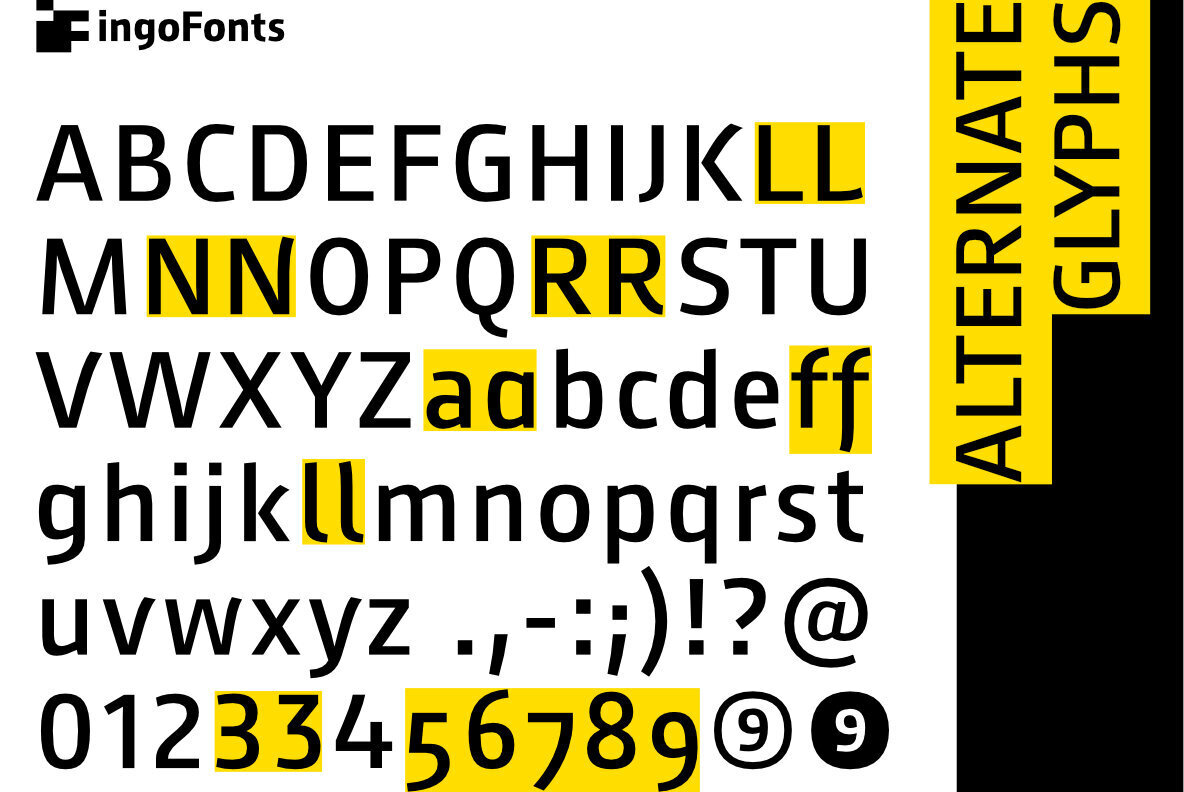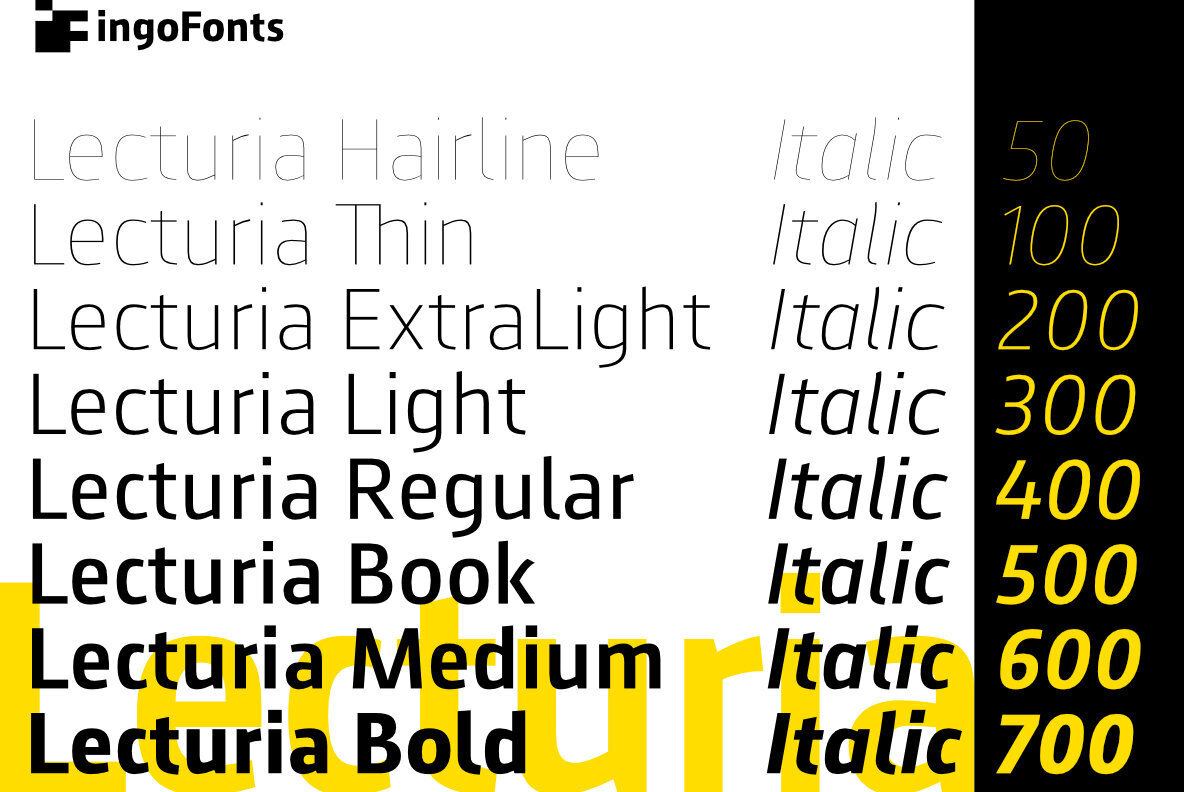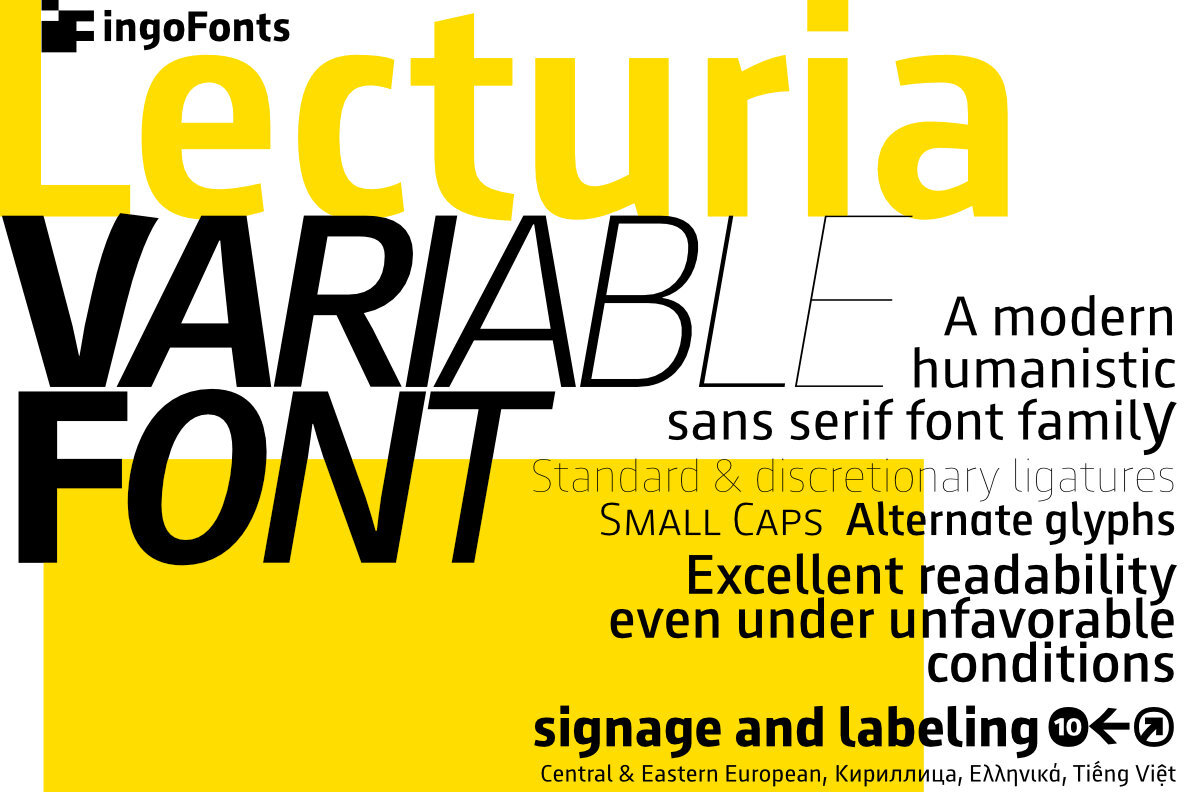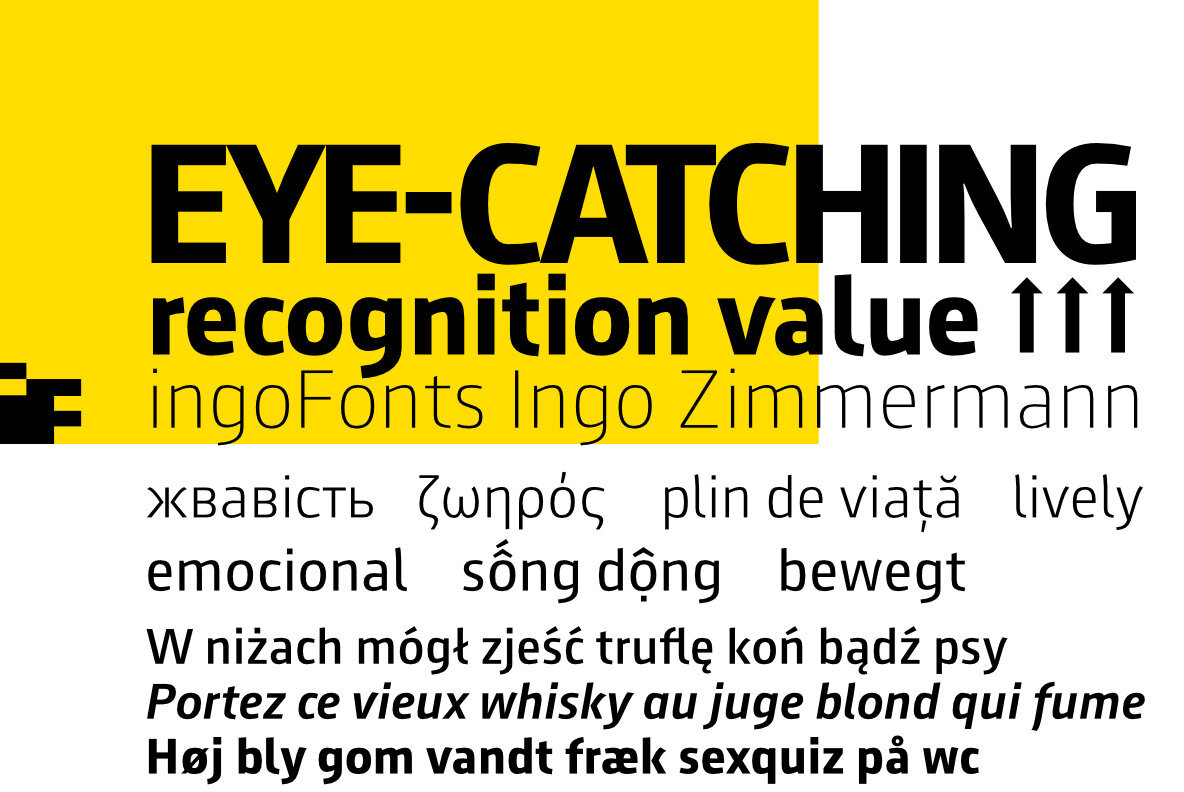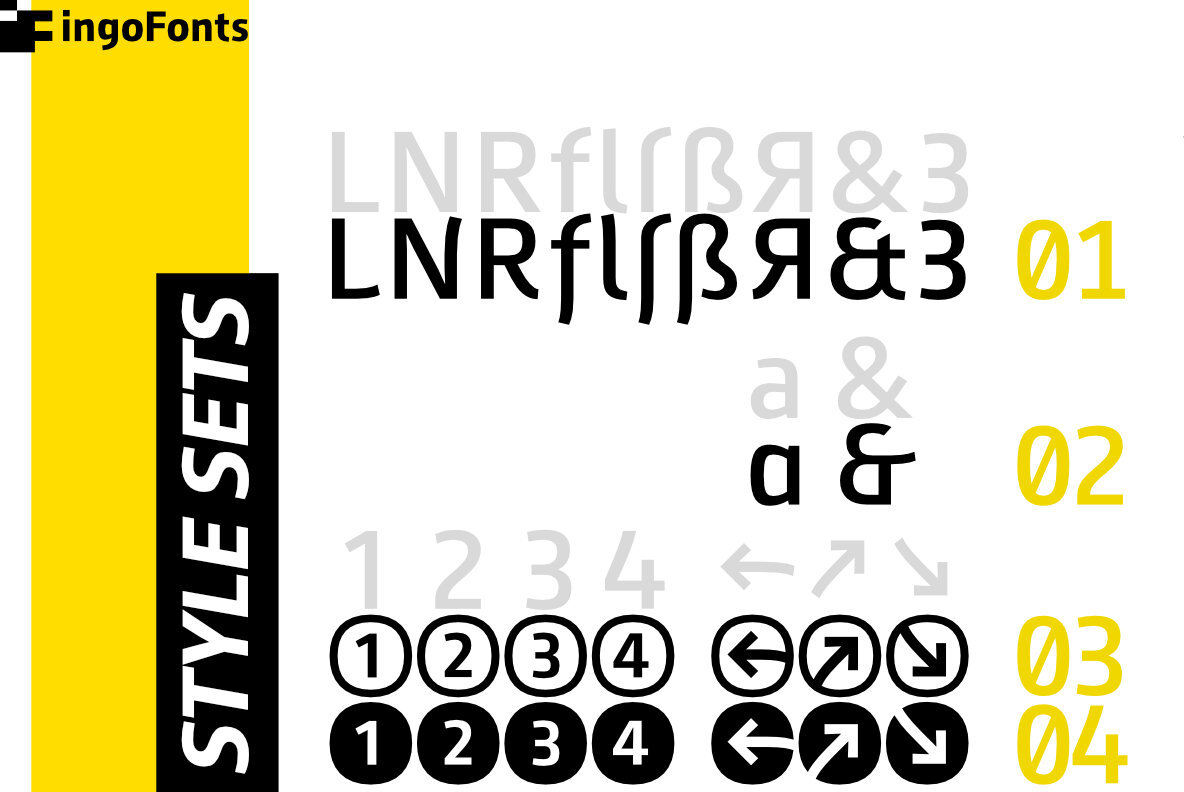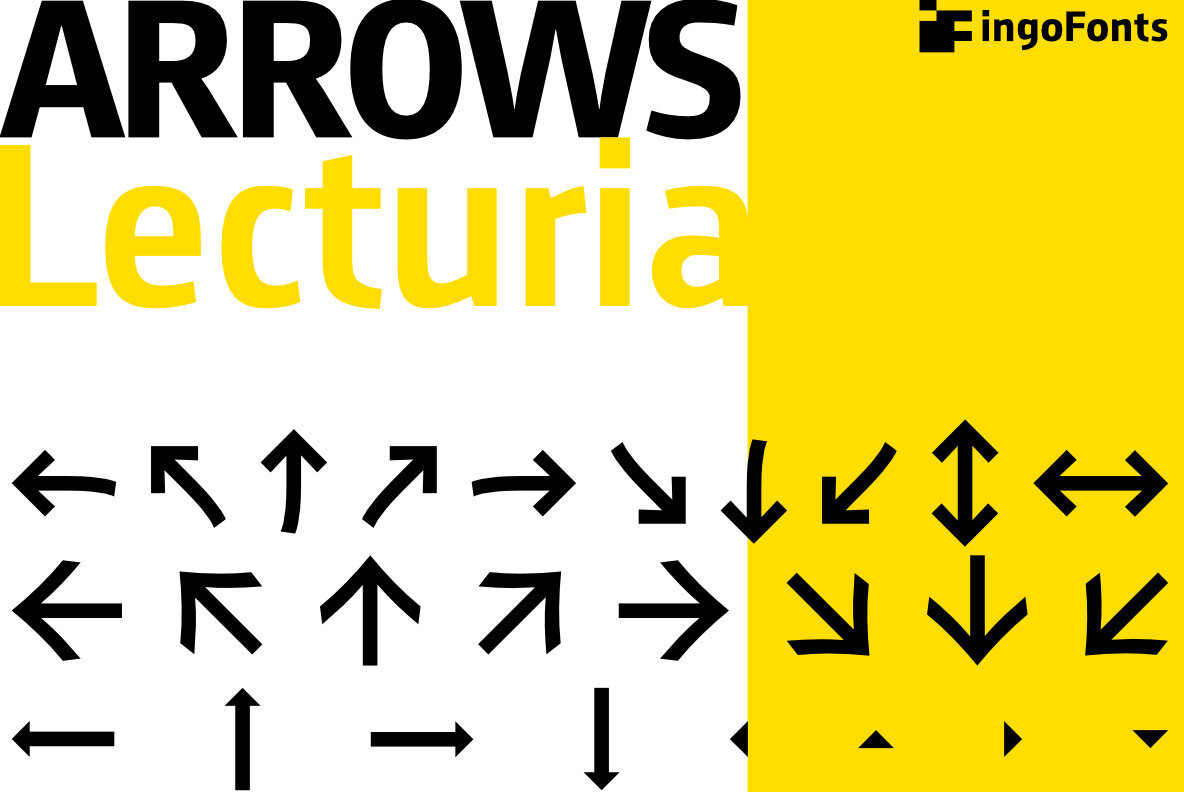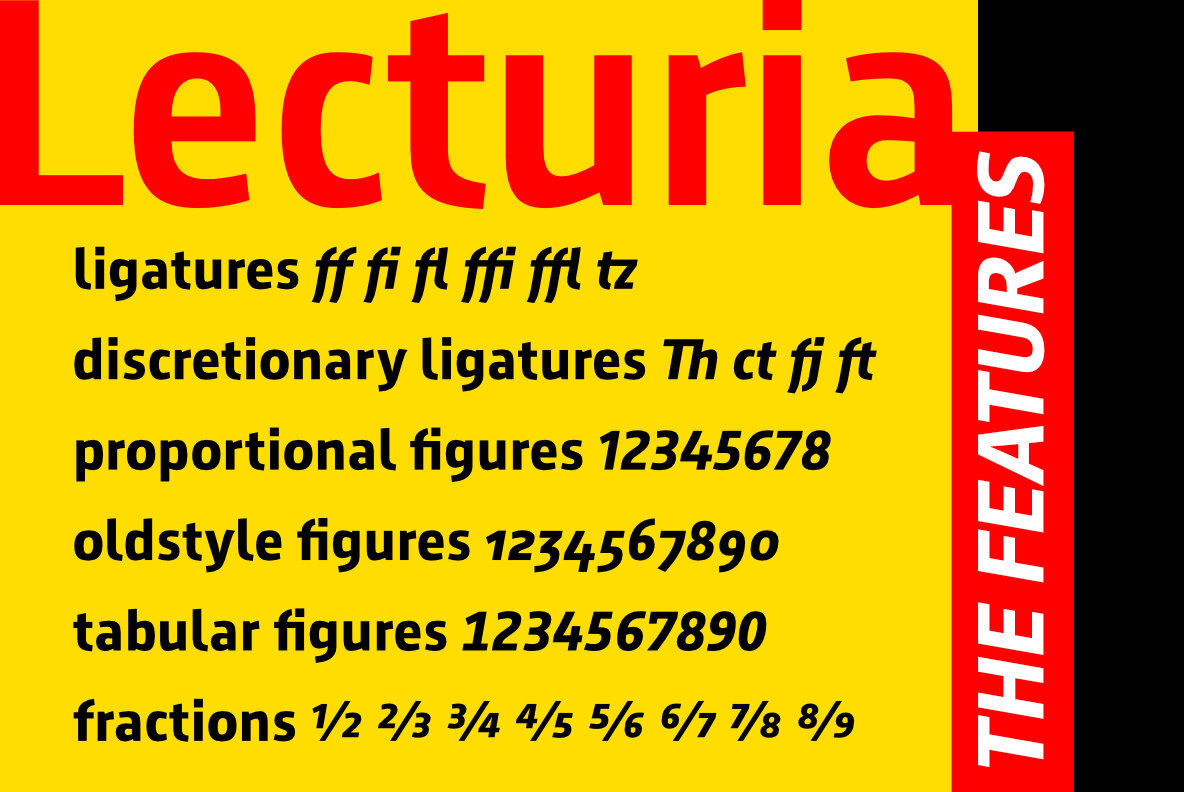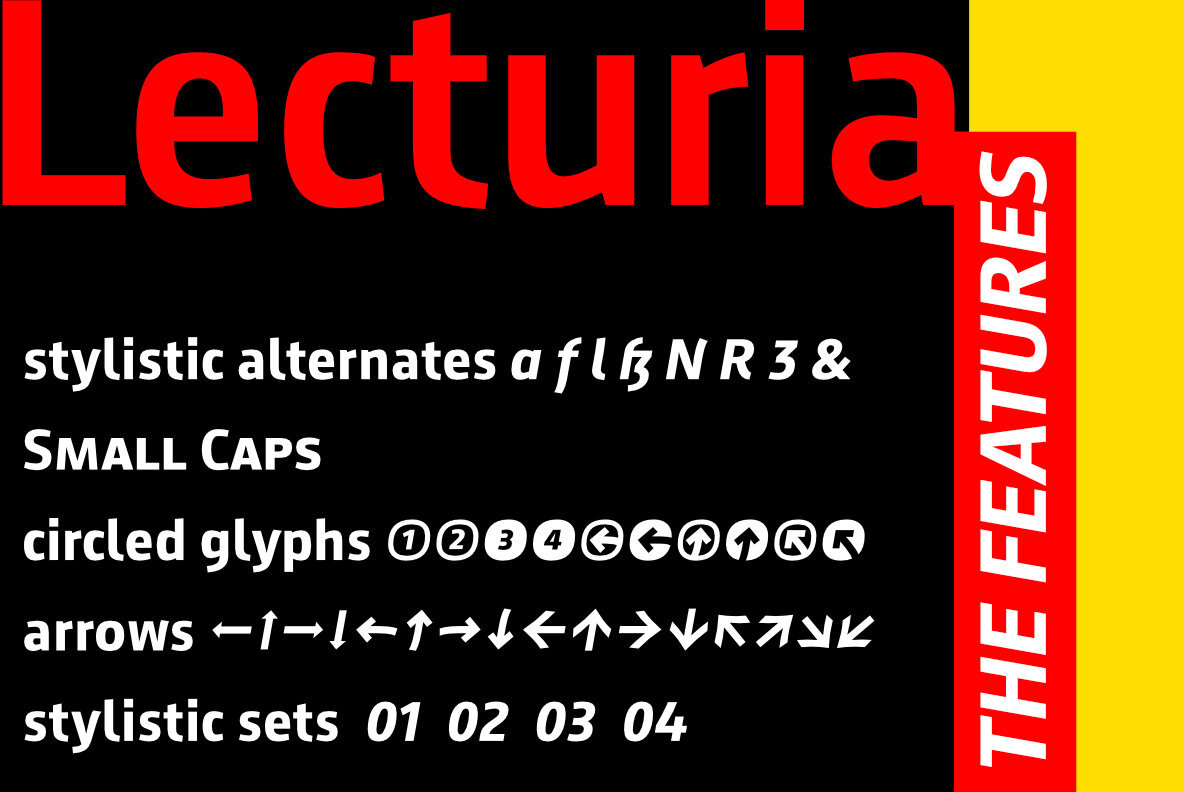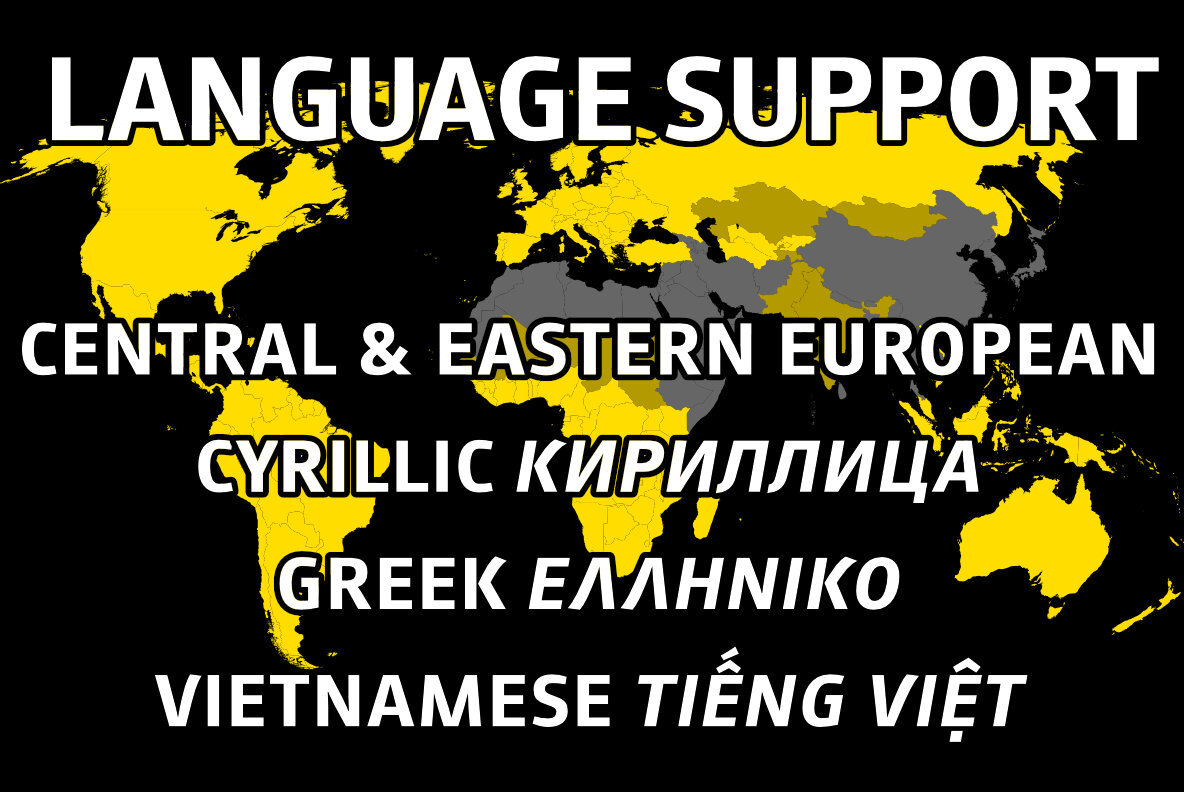
Lecturia Font
Lecturia exemplifies the dynamic and efficient spirit of modern typesetting. Characterized by its ascending dynamic movement, each character within this typeface offers stylistic alternates for enhanced expressive potential. The family encompasses eight weights, from the nuanced Hairline to the robust Bold, each available in upright and italic. The variable font capability allows fine-tuned control over intermediate weights. Engineered for readability in both body text and headings, Lecturia maintains clarity even from afar or under suboptimal conditions. Its humanistic design language provides a sophisticated alternative to traditional sans serif fonts, making it particularly engaging in large sizes for headlines. The exceptional readability of Lecturia suits it perfectly for information systems design, complemented by a selection of directional arrows.Lecturia: A Modern Humanist Sans Serif Typeface